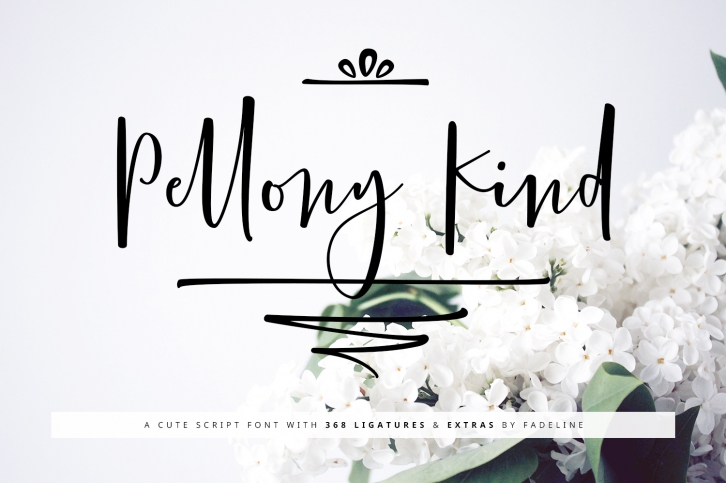
Pellony Kind Cute + Extras is a gorgeous font that was realeased on February 23, 2018. The font can be used in many style contexts and design environments. Perfect for invitations, magazines, websites, logos, and more! It was designed by FadeLine Studio and the file size is 11.93 MB. Thanks for checking out this font!